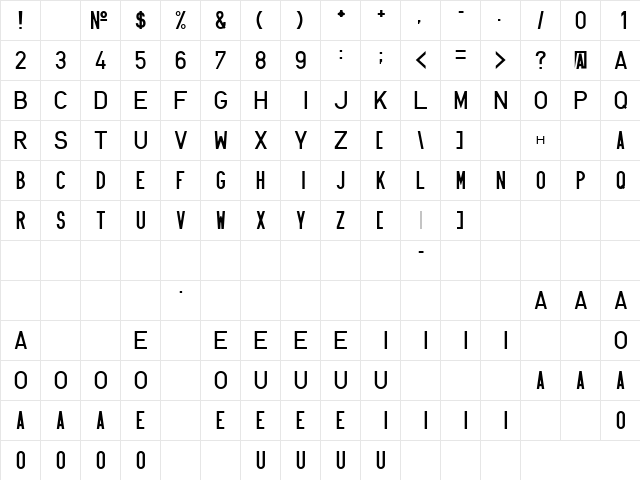
HUN-din 1451 Regular
Design Context for HUN-din 1451 Typeface
HUN-din 1451 offers clean, dependable letterforms without strong stylistic allegiance, making it a practical choice for designers who need flexibility.